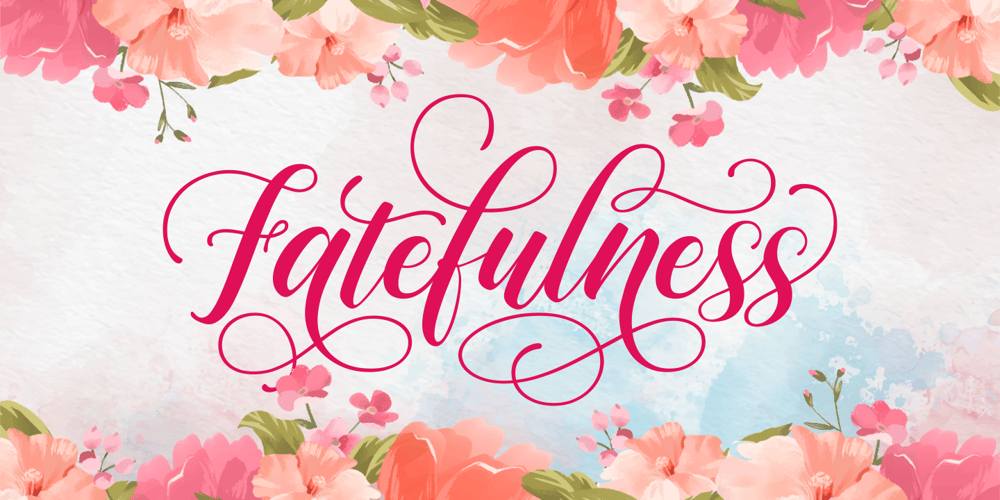
Fatefulness
Fatefulness font
Fatefulness Font Family was designed by Ali Hamidi and published by Brithos Type. Fatefulness contains 1 styles and family package options. Fatefulness is a sweet, soft hand-lettered handwritten font. Fall in love with its authentic feel and use it to create gorgeous wedding invitations, beautiful stationary art, eye-catching social media posts, and cute greeting cards.